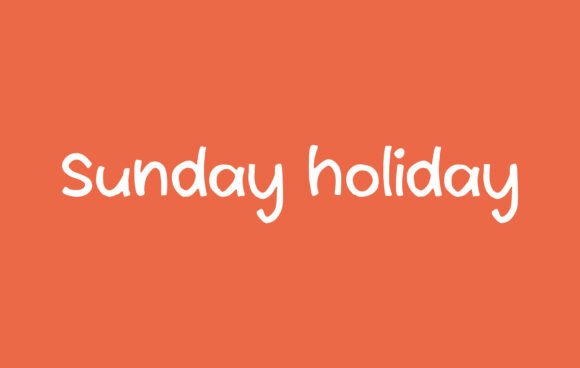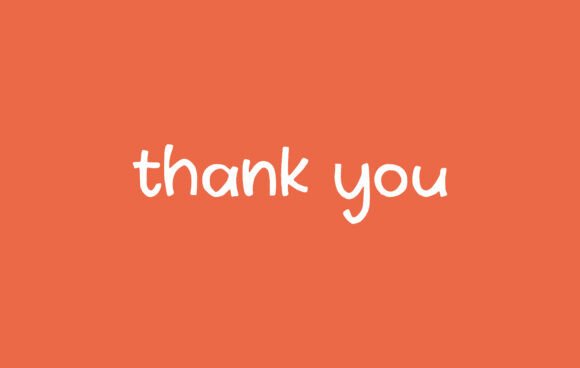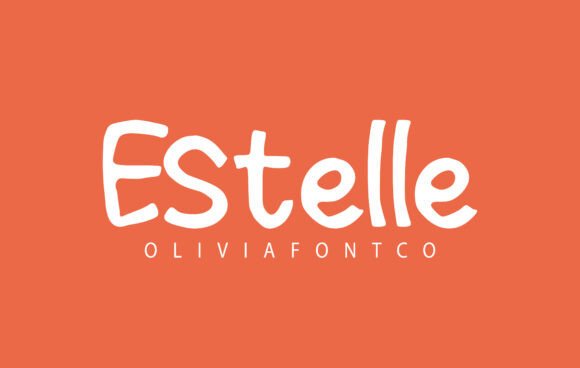
Introducing Estelle Font: The Ultimate Handwritten Font for Creative Expression
Are you tired of using the same old fonts for your creative projects? Look no further than Estelle Font, an authentic handwritten font with a romantic touch that’s sure to take your designs to the next level. Expertly crafted to be a true favorite among designers and crafters, Estelle Font is the perfect choice for anyone looking to add a personal touch to their work.
What Makes Estelle Font So Special?
Estelle Font is more than just a font – it’s an experience. With its unique blend of elegance and whimsy, this font is sure to capture the hearts of designers and crafters alike. Here are just a few reasons why Estelle Font stands out from the crowd:
- Authentic Handwritten Style: Estelle Font is carefully crafted to mimic the look and feel of handwritten text, giving your designs a personal and human touch.
- Romantic Touch: With its flowing curves and delicate lines, Estelle Font is perfect for creating romantic and whimsical designs that capture the heart.
- Legibility: Despite its ornate appearance, Estelle Font is highly legible, making it perfect for use as both title and body text.
- Versatility: Whether you’re designing magazine headlines, social media graphics, branding materials, wedding invitations, or cards, Estelle Font is the perfect choice.
Endless Design Possibilities with Estelle Font
One of the best things about Estelle Font is its incredible versatility. Here are just a few ideas for how you can use this amazing font in your designs:
- Magazine Headlines: Use Estelle Font to create eye-catching headlines that grab readers’ attention and draw them in.
- Social Media Graphics: Add a touch of elegance and sophistication to your social media graphics with Estelle Font.
- Branding Materials: Use Estelle Font to create a consistent brand identity that sets your business apart from the competition.
- Wedding Invitations: Make your wedding invitations truly special with Estelle Font, perfect for creating romantic and memorable designs.
- Cards and Stationery: Add a personal touch to your cards and stationery with Estelle Font, perfect for birthdays, holidays, and more.
Why Designers and Crafters Love Estelle Font
Estelle Font has quickly become a favorite among designers and crafters, and it’s easy to see why. Here are just a few reasons why this font has captured the hearts of creative professionals:
- Easy to Use: Estelle Font is incredibly easy to use, even for those with limited design experience.
- High-Quality Design: With its expertly crafted design, Estelle Font is perfect for creating high-quality designs that stand out from the crowd.
- Unique Style: Estelle Font offers a unique and distinctive style that’s sure to set your designs apart from the competition.
In conclusion, Estelle Font is an amazing handwritten font with a romantic touch that’s perfect for designers and crafters looking to add a personal touch to their work. With its unique style, legibility, and versatility, Estelle Font is sure to become a favorite among creative professionals. Whether you’re designing magazine headlines, social media graphics, branding materials, wedding invitations, or cards, Estelle Font is the perfect choice. So why wait? Download Estelle Font today and take your creative ideas to the highest level!